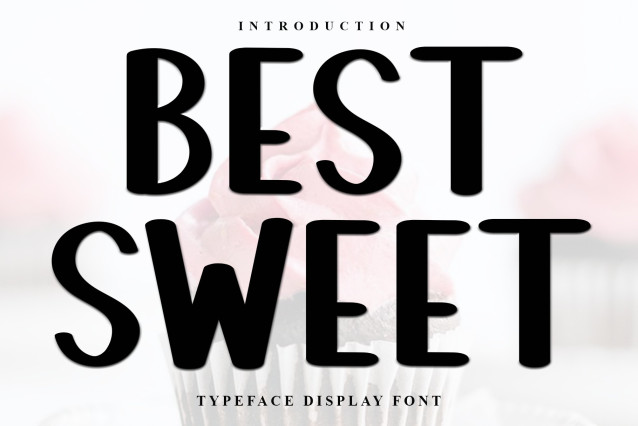
Best Sweet Font
Best Sweet Font is a chunky, comic, and cartoon display font. With its neat and joyful personality, this font will enhance any project you wish to create!